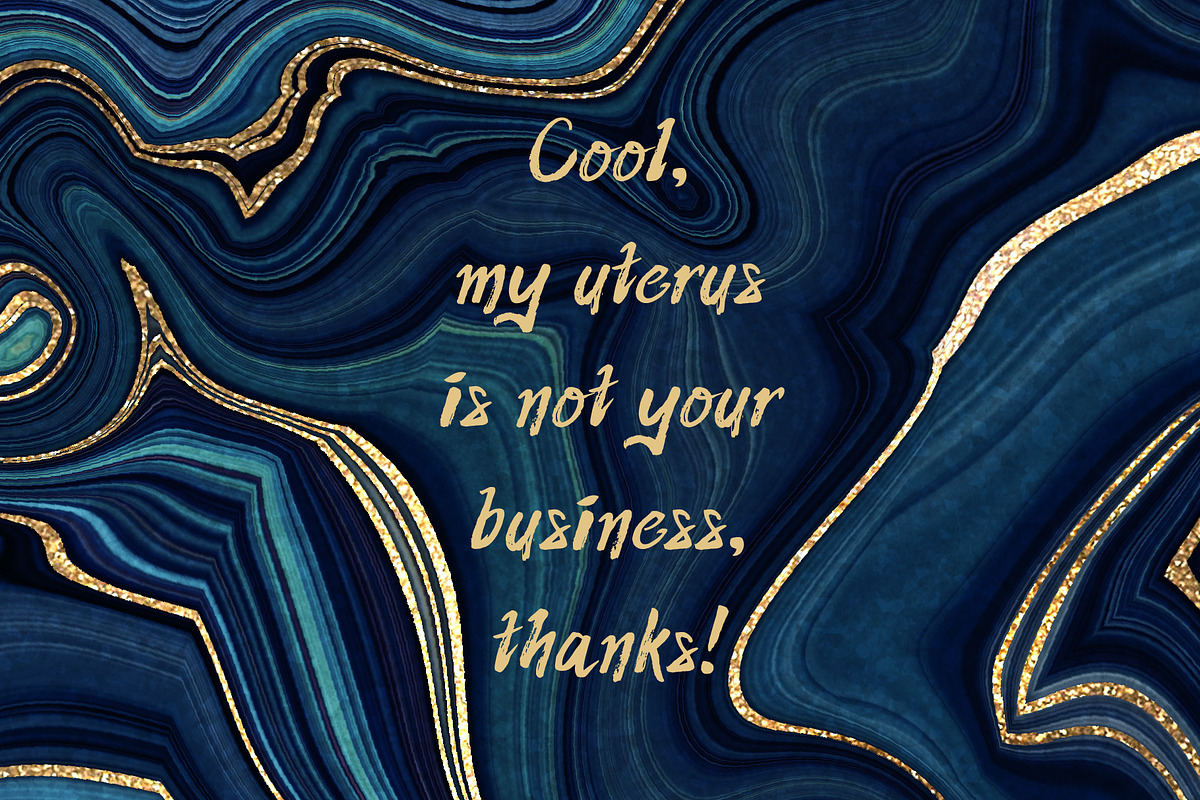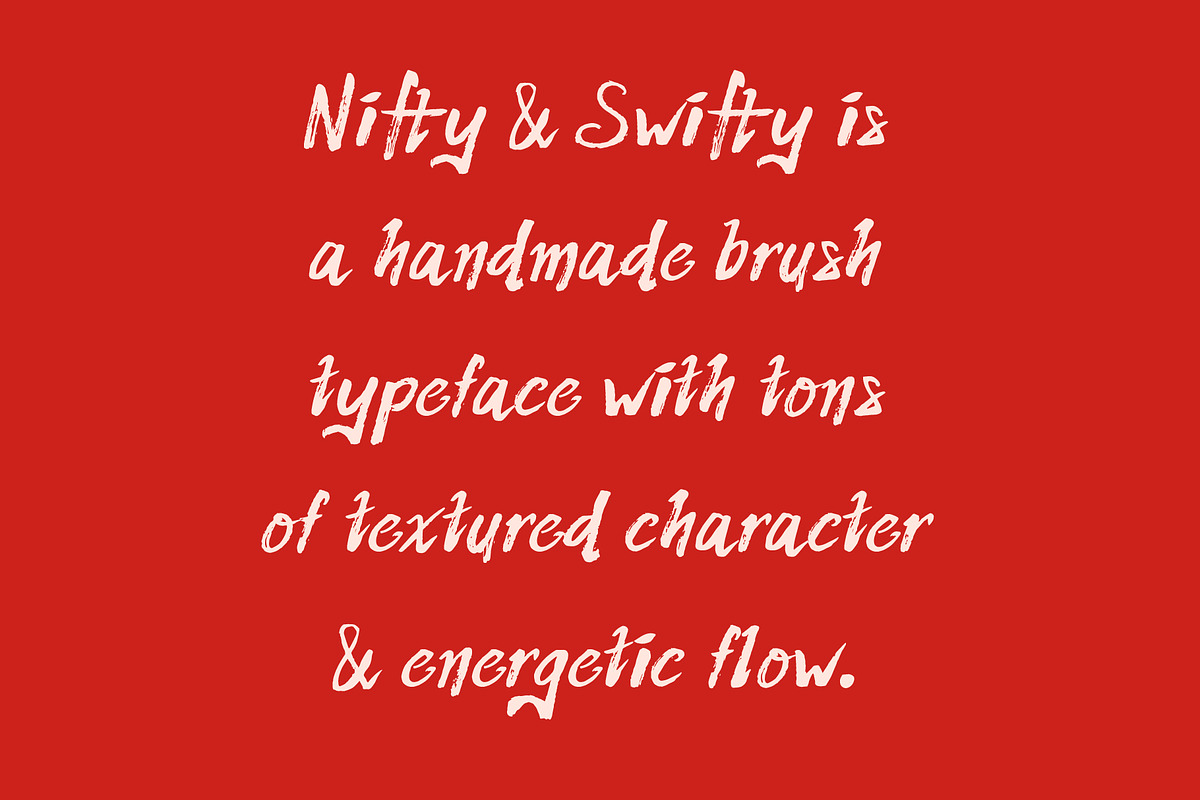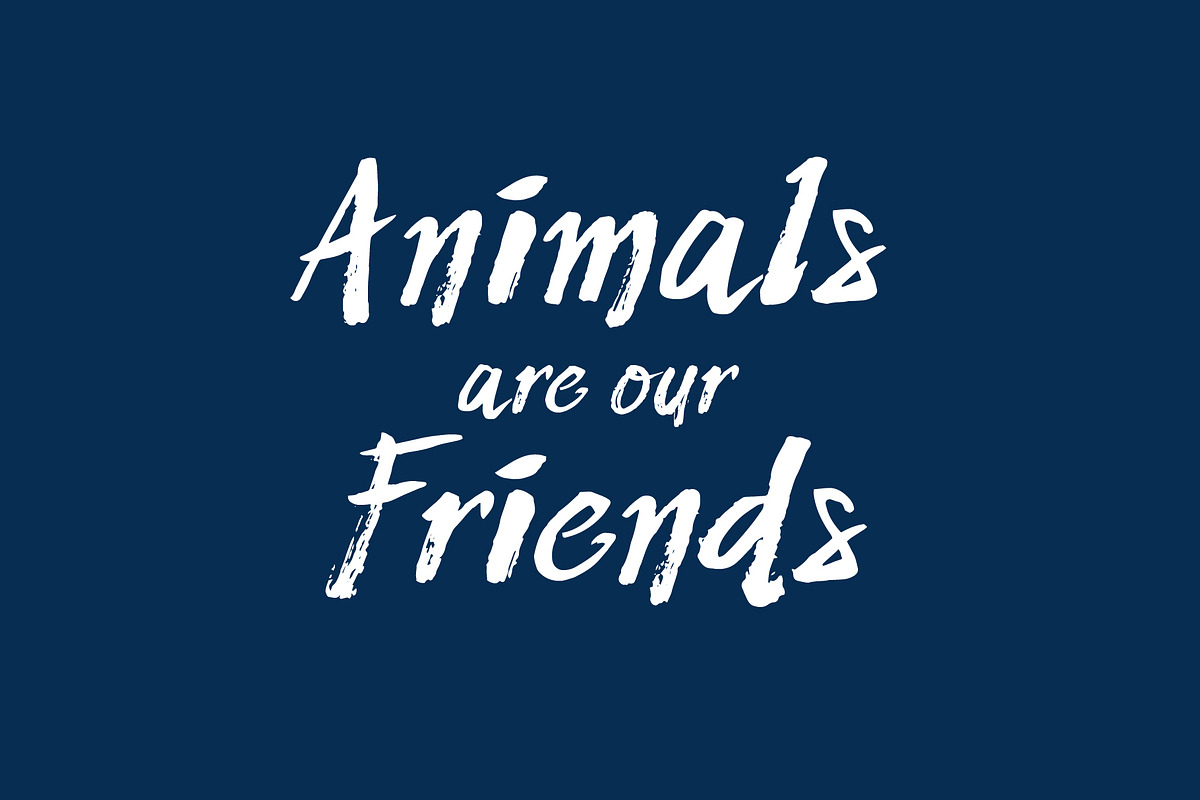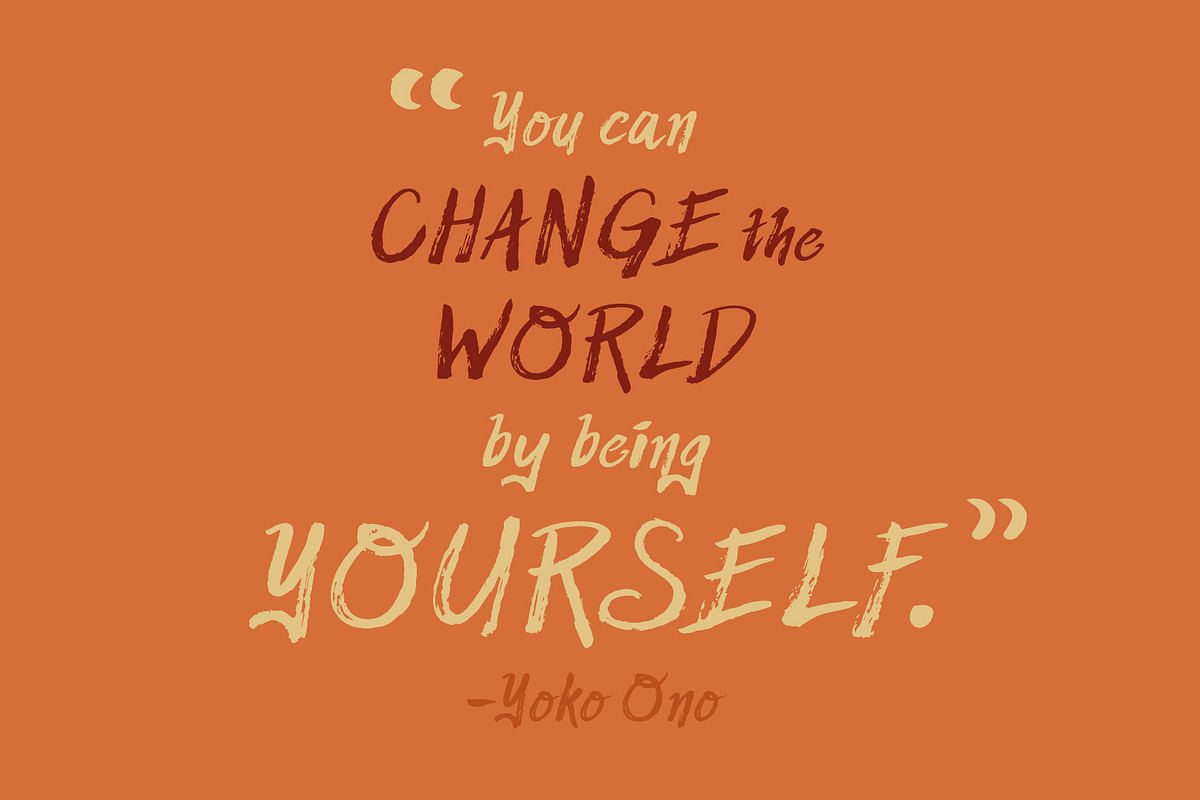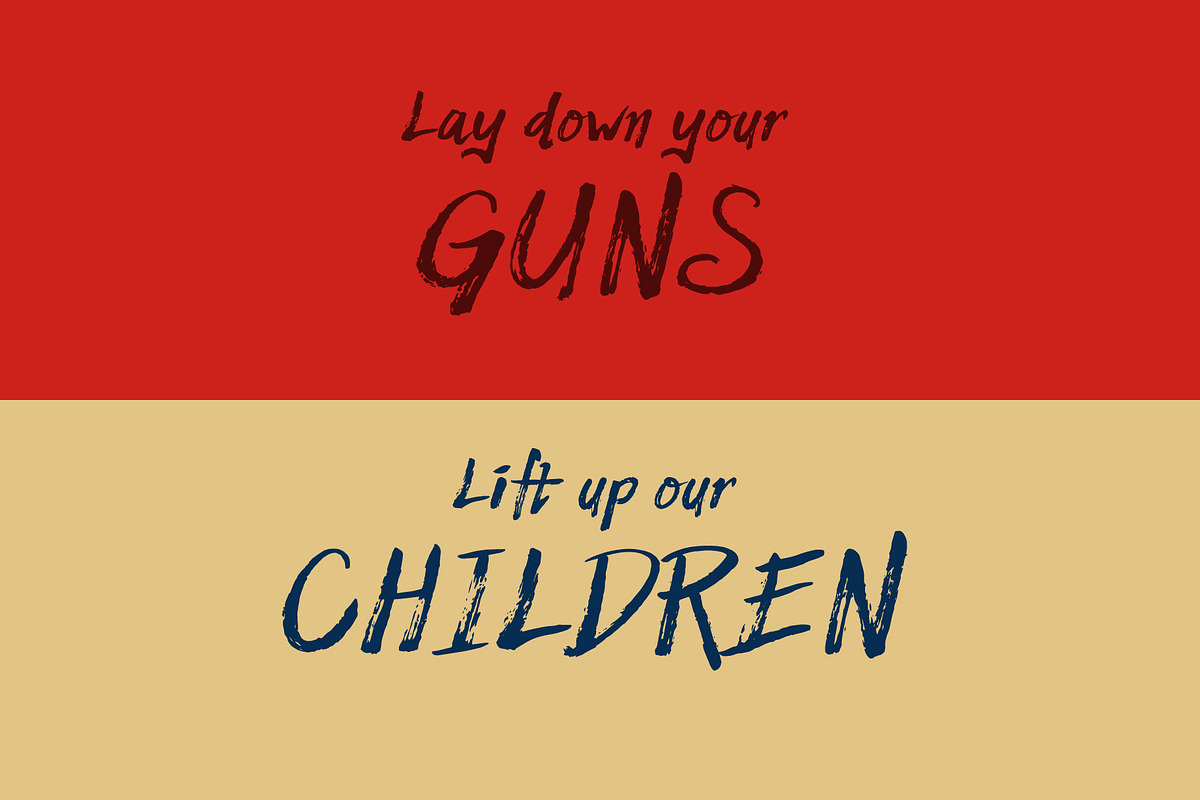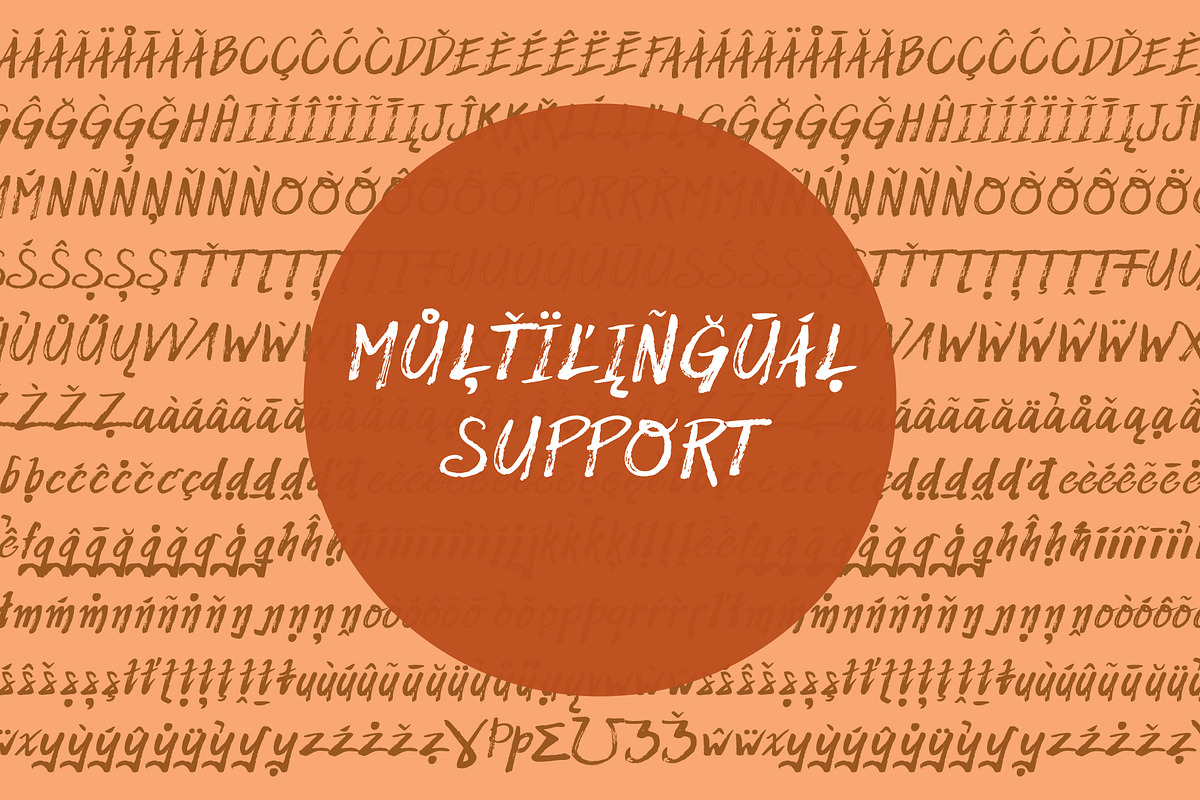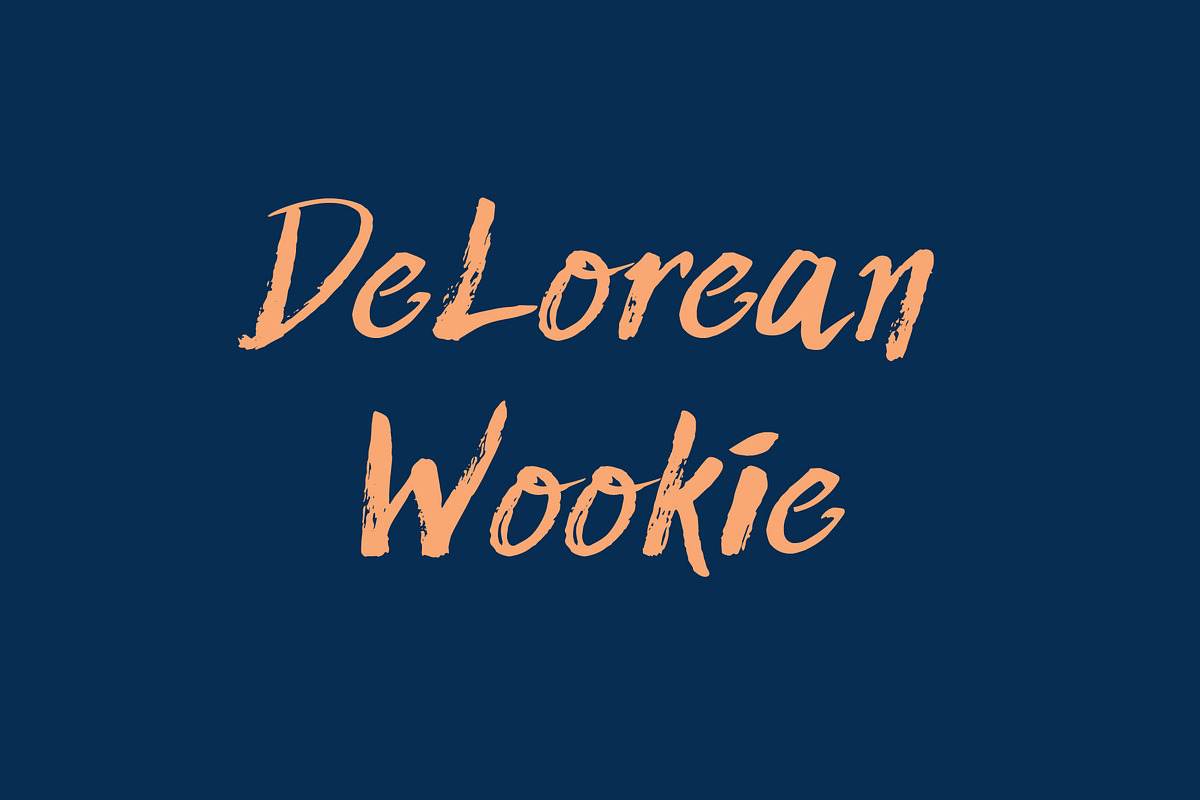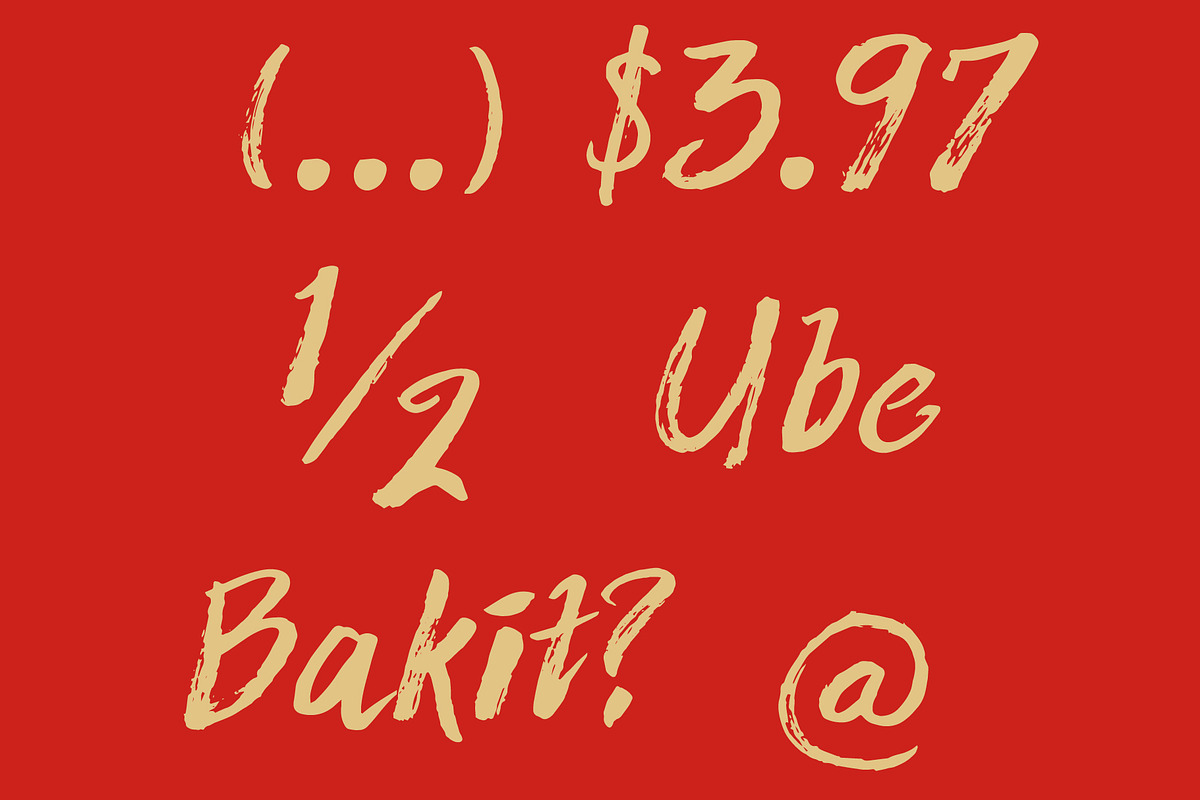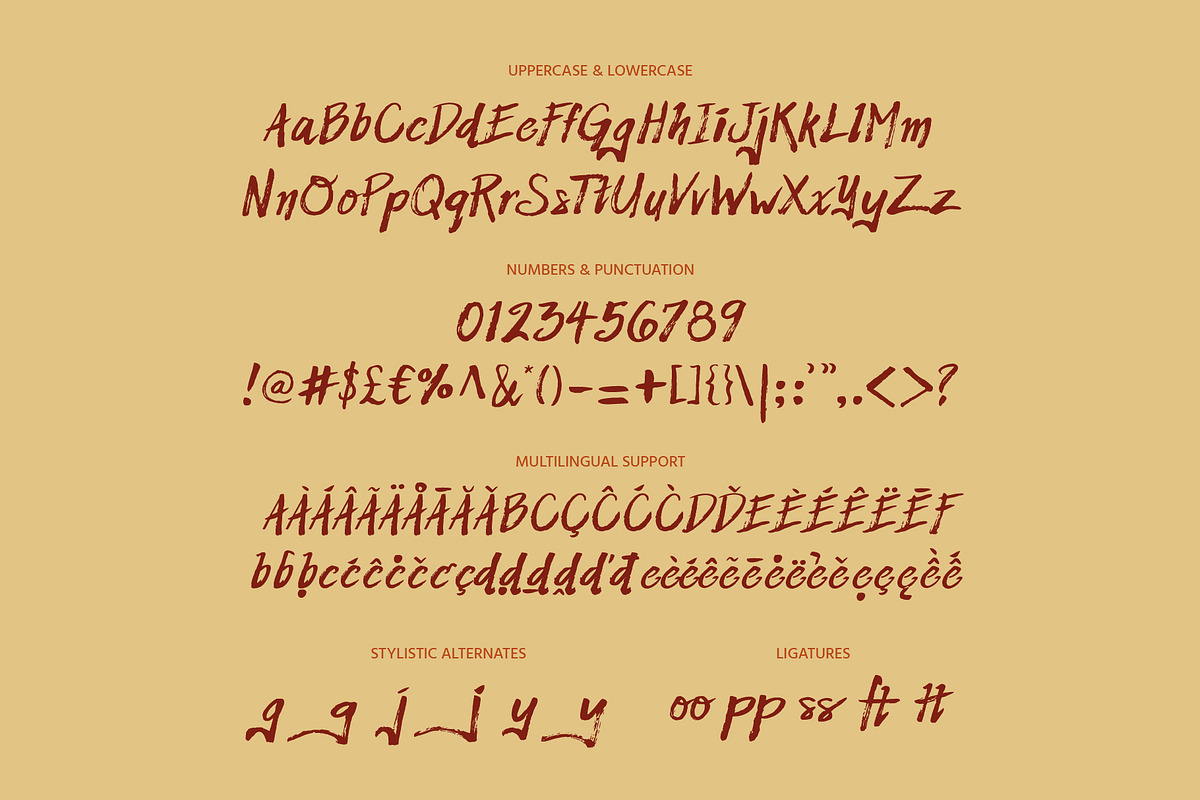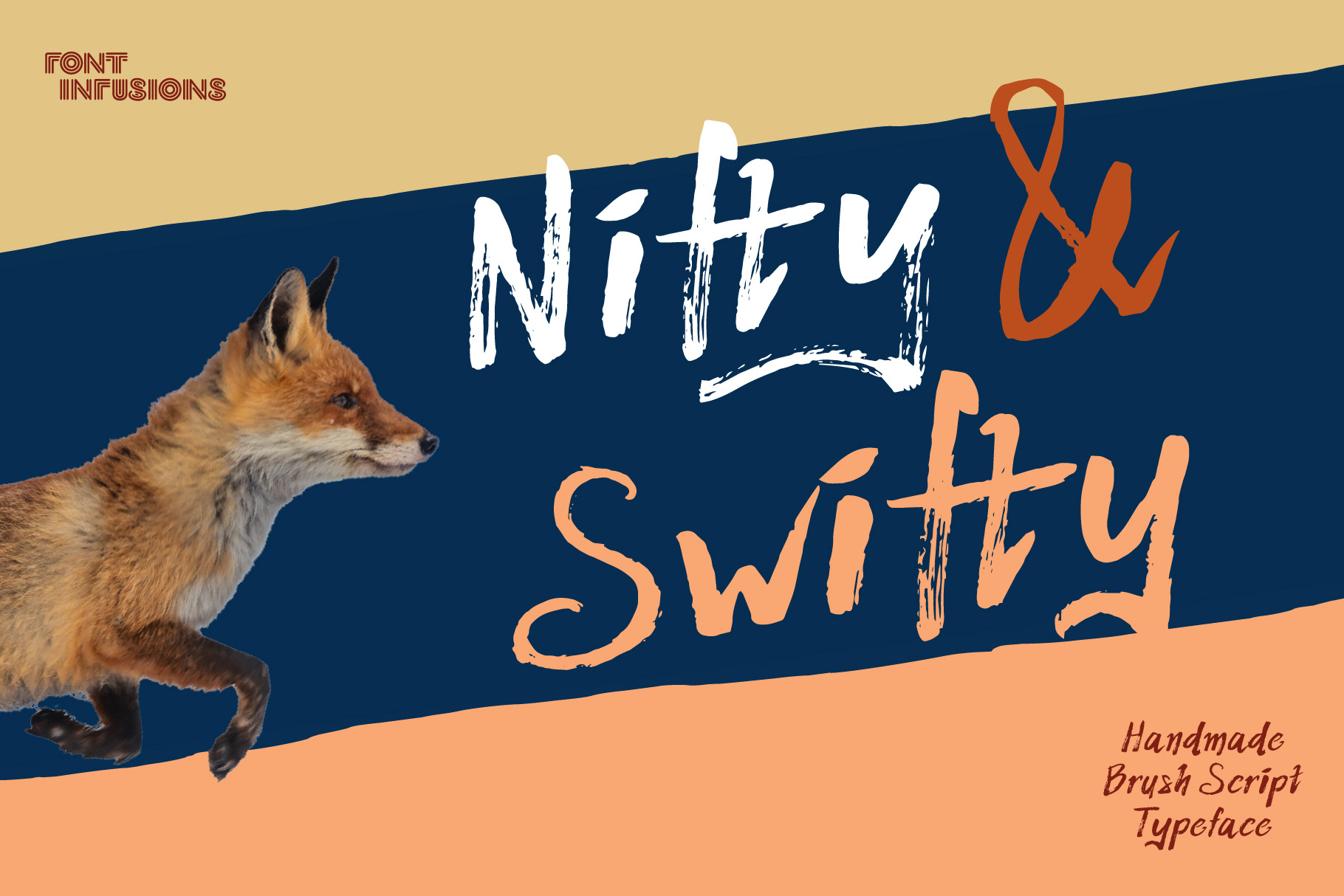
Nifty & Swifty - brush font
Type Specimens If your project needs to look unmistakably handwritten, this breezy and beautifully raw typeface is for you. Get those characters extra large on the page to show off those textures. If you have a personal quote to share, a smaller type size will communicate your sentiment splendidly. The versatility of Nifty & Swifty gives you an edge in your digital art box, since it can work for a variety of messaging, from feel-good and heartening to pointed and stern.
Typography Talk This typeface is all about brushy textures, swashy exit strokes, and forward angles for momentum. Look out for a sprinkling of stylistic alternates and ligatures for an organic feel. Characters stand independently with no connecting strokes for a casual effect. Curved and swooshy descenders of the lowercase d, g, j, and y add a touch of flair. And the pointed upward exit strokes made with a flick of the wrist in the lowercase a, c, t, v, w, and x adds a winky dash.
Background This typeface started with experimental play with a pocket brush pen.
More texture emerged with faster pen strokes, which was fabulous because texture is my catnip. “Light and fast like a fox” was my mantra when crafting this, so I knocked out the basic alphabet in one whoosh-filled sitting. When I expanded the character set with punctuation, diacritics, and symbols, I made sure to stay speedy. The result is a handwritten typeface with nifty and swifty whooshes for your fonting pleasure. (Typeface name note: Elder millennials, if you watched the cottagecore cartoon ‘David the Gnome,’ you might remember that the gnomes’ loyal fox was named Swift.)